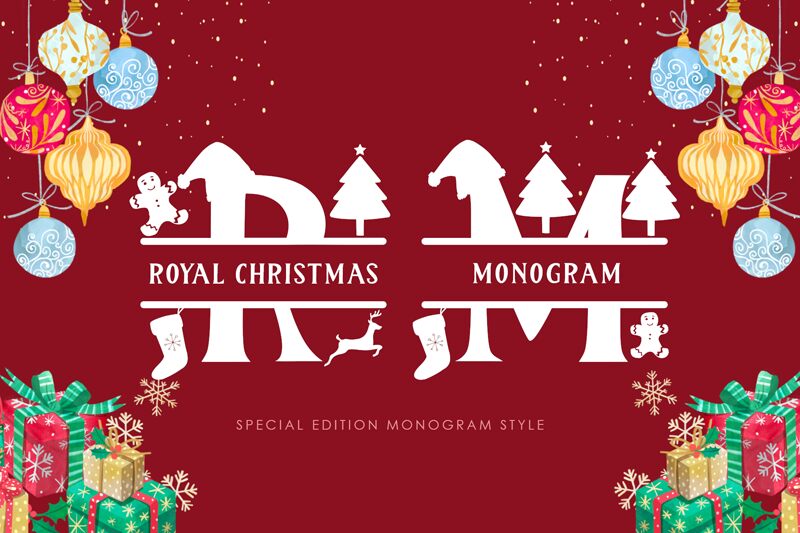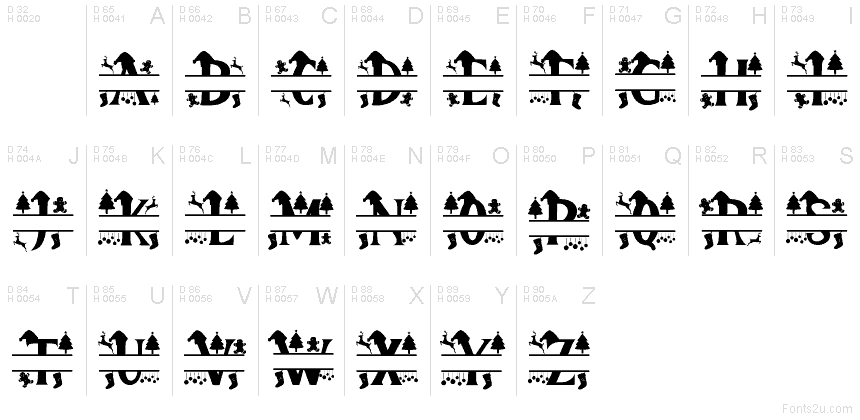
Royal Monogram
Royal Monogram font by Yoga Letter is a free Christmas holiday typeface that wraps every letter in ornate, festive flourishes. Tall, regal forms are crowned with little winter motifs and swirling curls, so your text looks like a hand-drawn crest on a vintage greeting card. The strokes feel inky and intricate, giving monograms and initials a luxurious, gift-ready presence without any extra illustration work.
Using Royal Monogram, you can instantly elevate Christmas cards, gift tags, party invitations, seasonal logos, packaging, and social media graphics. This free font shines when used large, letting all the tiny curls and embellishments stay crisp and readable. Pair it with a clean sans serif in smaller sizes to handle details like dates or addresses, and let Royal Monogram carry the festive, royal flair.